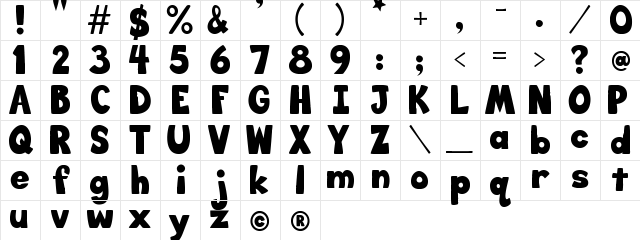
Big_Bottom_Cartoon Regular Free Font
Big_Bottom_Cartoon Regular
Design Context for Big_Bottom_Cartoon
Big_Bottom_Cartoon has an approachable, lighthearted character - its loose, expressive forms are well-suited to children's content, casual branding, and fun-first design.
Font Pairing: Pairs well with a rounded or humanist sans for body copy, maintaining the friendly tone without relying on Big_Bottom_Cartoon to carry extended reading.
Pro Tip: Use Big_Bottom_Cartoon at larger display sizes where its expressive character can land. Pair with a clean, simple sans for body copy to maintain readability.